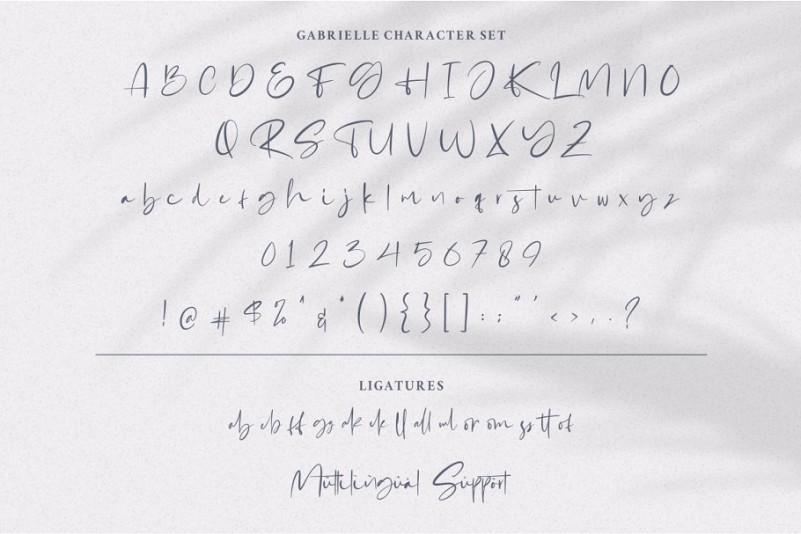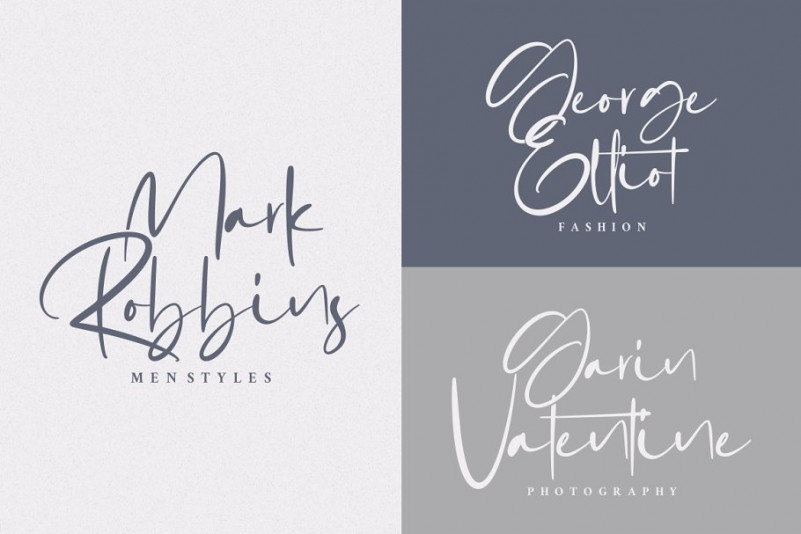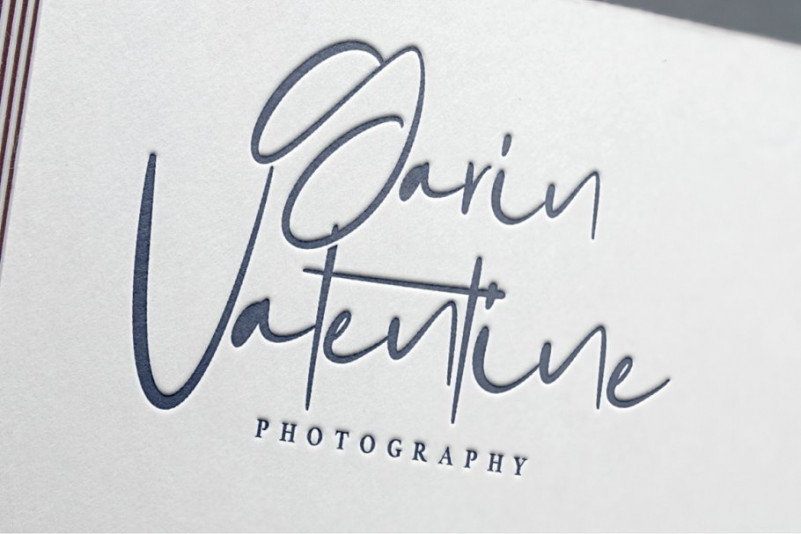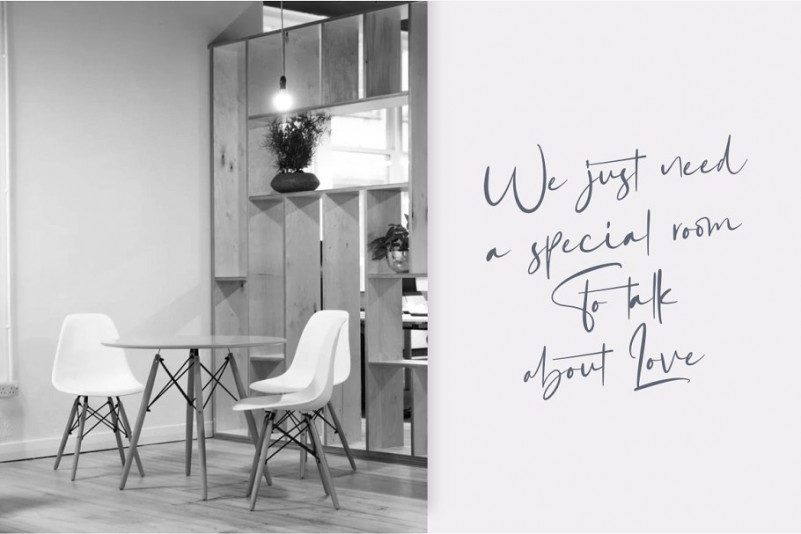
Gabrialle Script Font
Are you looking for a casual script font? We can help! Try to download Gabrialle font. This font was designed using quick strokes to create natural handwritten, Stylish ligature to give the font a natural look in a digital world. Perfect for any awesome project that need hand writing taste. This Font can be used for any variety of purposes, such as: Photography, Wedding Invitation, Packaging Product, Logo Type, Brand, and also can be used for personal purpose.
This Font Template contains Modern, Elegant, creative, Professional and Unique Concept.